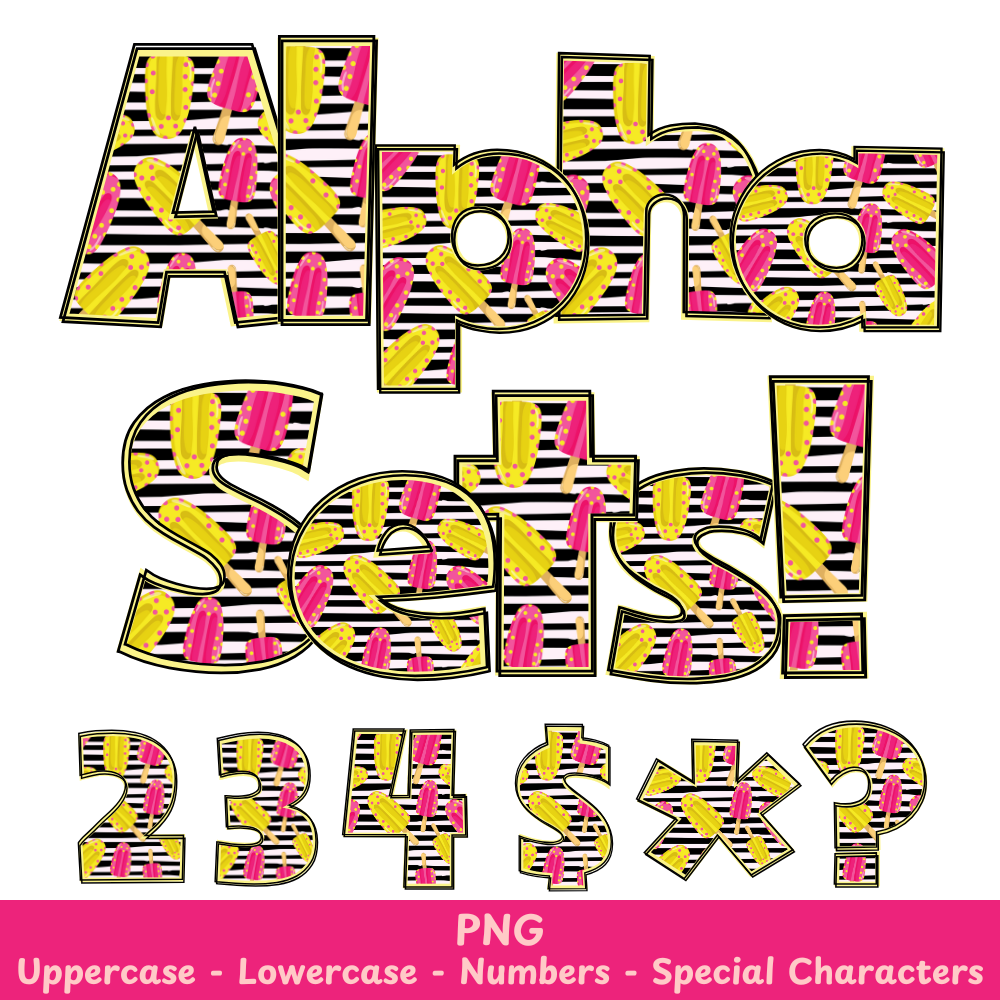
Popsicles Tropical PNG Font
Popsicles Tropical Alpha Set PNG Font Pack
Enhance your crafts and sublimation projects with Popsicles Tropical PNG Font. Expertly created for high-quality designs, this font offers endless possibilities for your creativity. With its tropical theme, it adds a fun and vibrant touch to any project. Enjoy the benefits of this unique font today!